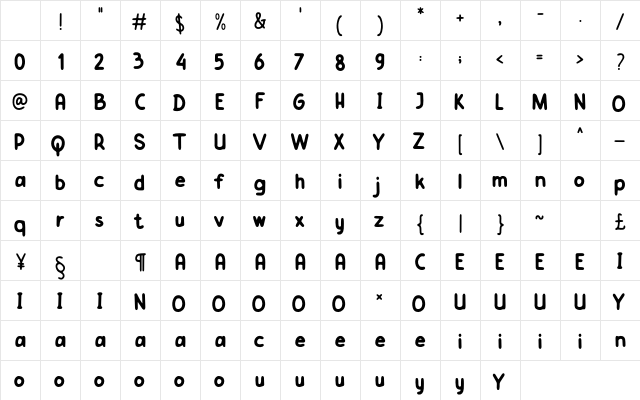
Complete Antara Boxing Demo Regular glyph index. Displaying only characters natively supported by Antara Boxing Demo Regular font.
Antara Boxing Demo is a composed and adaptable typeface that performs quietly and consistently across a wide range of design contexts.